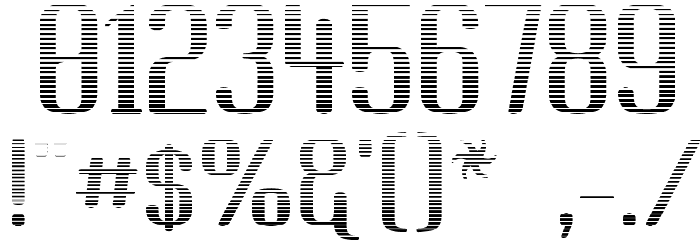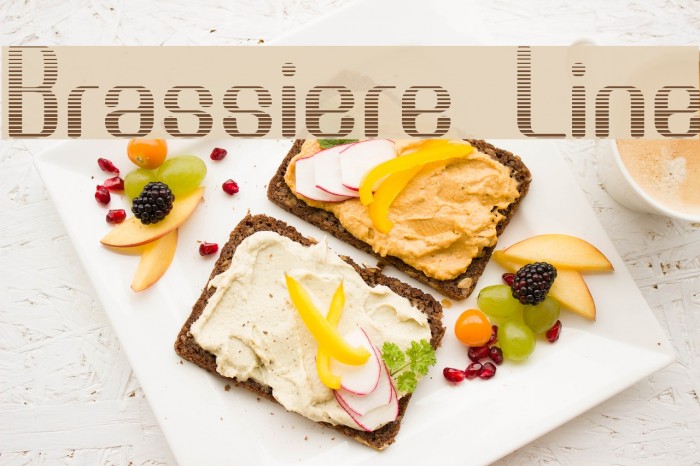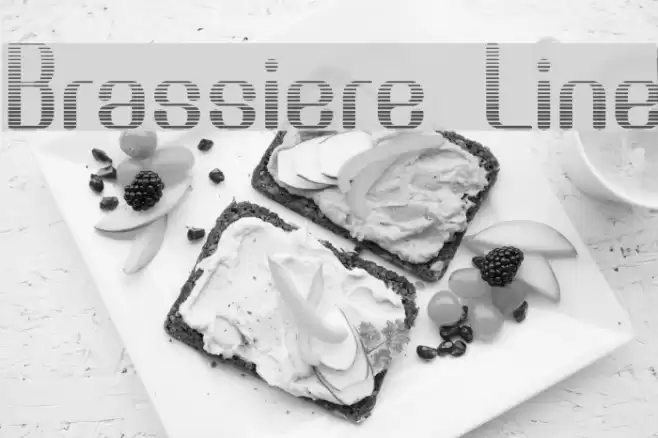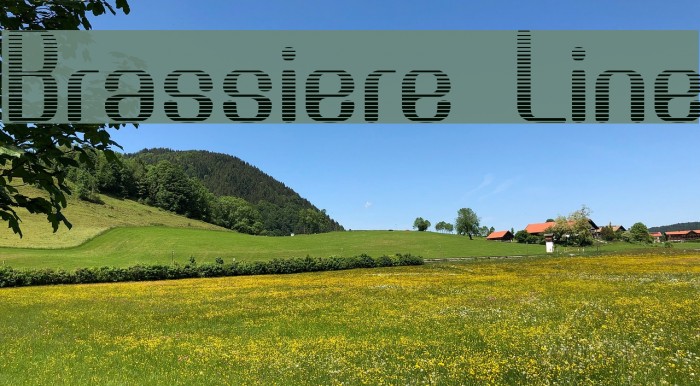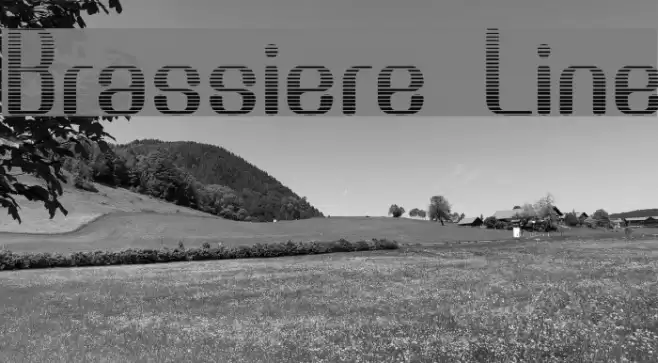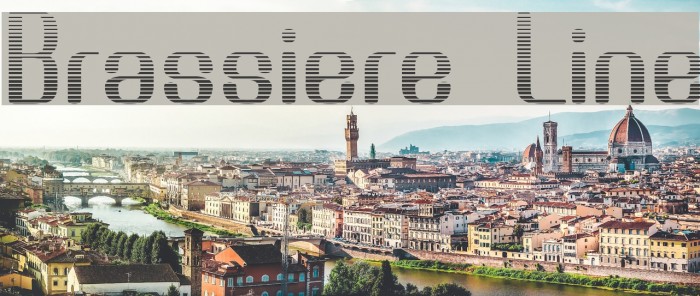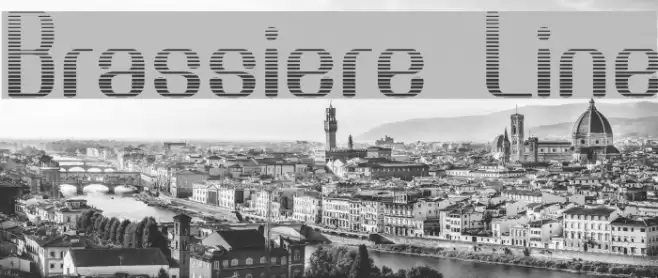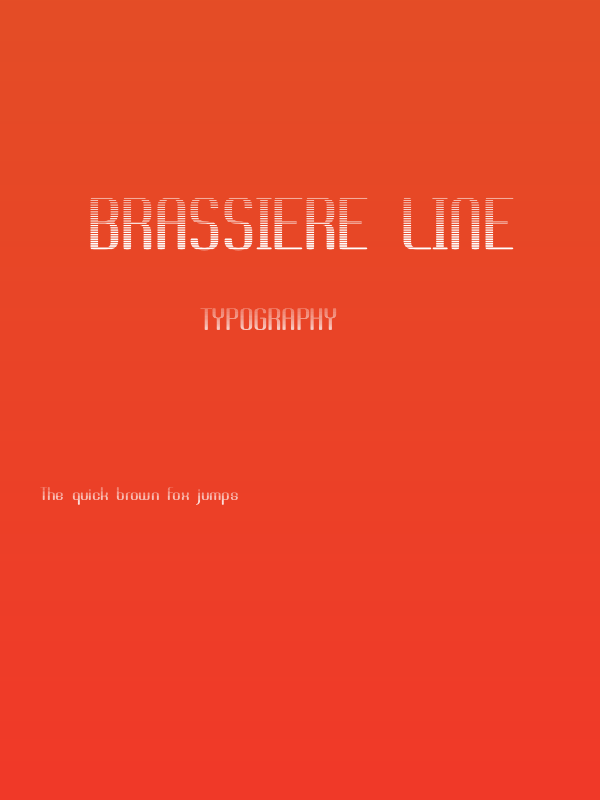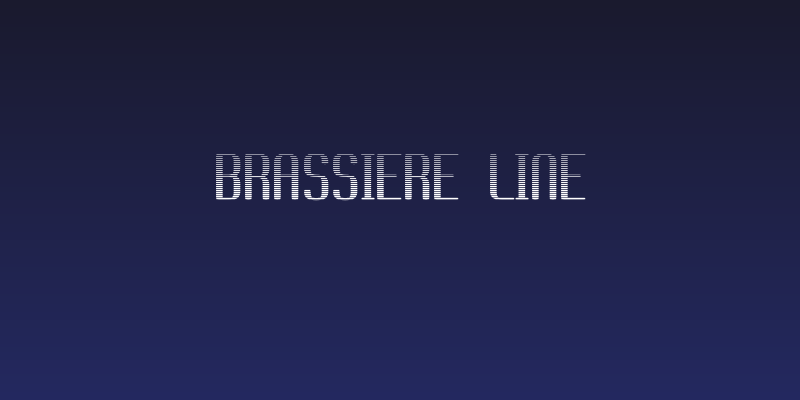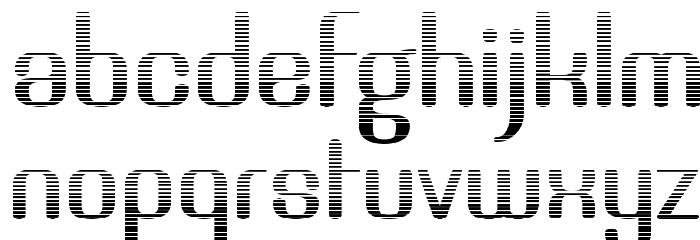
Brassiere Line Font
Brassiere Line Description
This font features a unique design characterized by horizontal lines that create a striped effect across each character. The uppercase and lowercase letters maintain a consistent width, giving the font a uniform appearance. The numerals and special characters follow the same pattern, ensuring a cohesive look throughout. The style is modern and eye-catching, making it suitable for projects that require a bold statement. The spacing between characters is normal, allowing for readability despite the intricate design. The font's playful yet structured appearance makes it versatile for various creative applications.
| Proposed Projects | Ideal for branding, posters, and creative digital designs. |